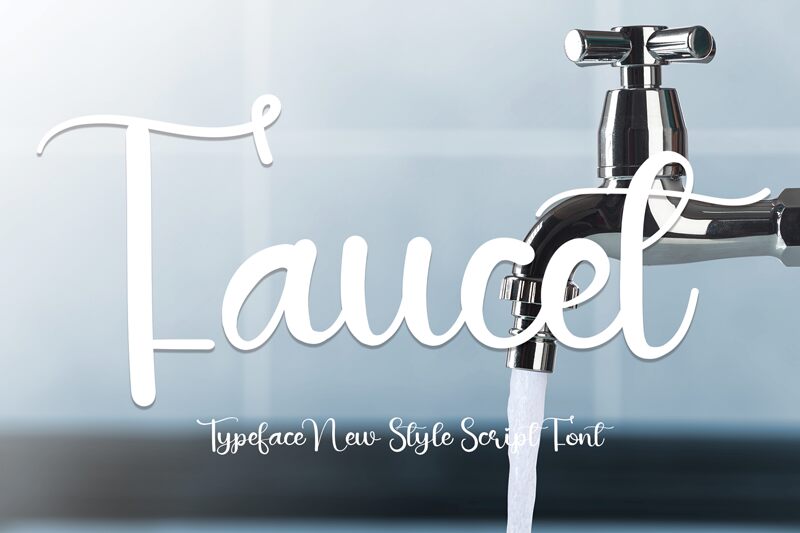
Faucet font by Andi Moz is a free handwritten font whose unique style has wowed many designers. The lines and edges of this font are both inviting and sophisticated, giving it a lively modern appearance. This alphabet was released in the involvement of the notable author Serrgey Mulevanee who has designed the showcased logotype. Many characters were hand-drawn to capture the authentic handwritten aspect of this typeface.
This is a sweet and friendly handwritten display font. Cute and fun, this font is ideal for writing wedding invitations, cards, or any other design that might need a playful touch!